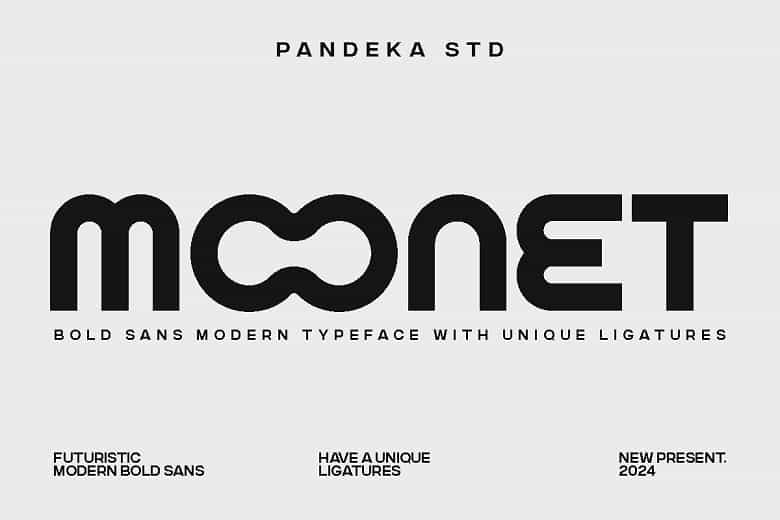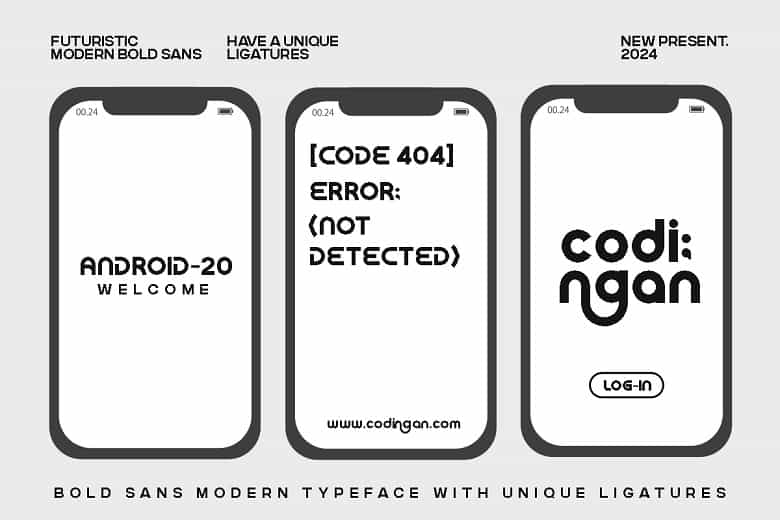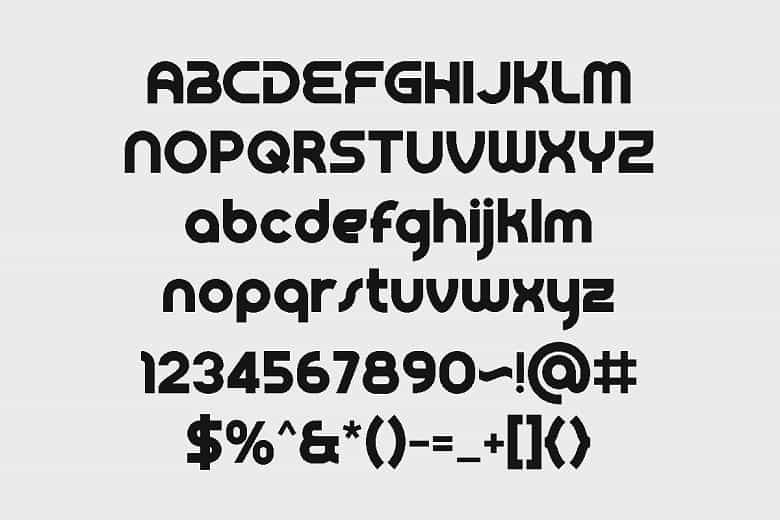
Moonet is a bold sans modern font with unique ligatures design. The curves on both the initial and terminal parts of the letter ornaments show that this font is very appropriate to the present and future. Moonet is quite flexible to be used in a variety of ways.